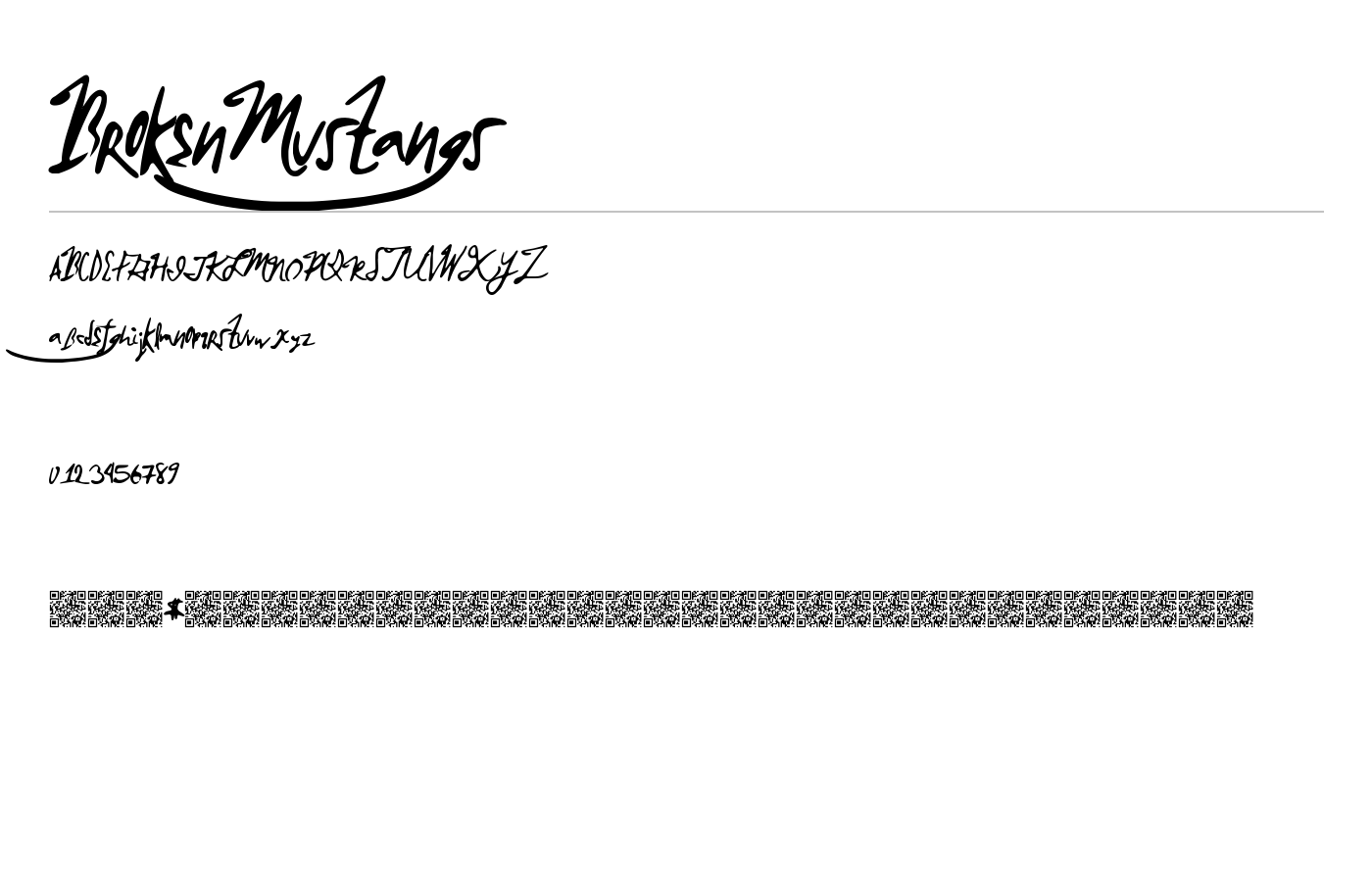
BrokenMustangs is a lively and edgy handwritten script font that features tall, slender letterforms with sharp, irregular strokes. Its energetic, informal style conveys creativity and attitude, making it ideal for bold logos, artistic branding, and dynamic headlines. This font excels when used to add a personal, rebellious touch to designs needing a raw, handcrafted feel.
BrokenMustangs Font
About BrokenMustangs Font